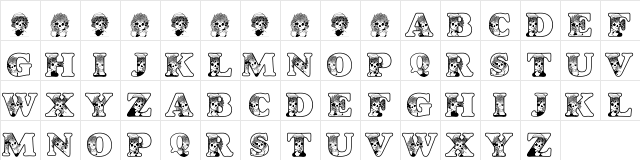
LMS Kids In A Candy Shop Regular
Design Context for LMS Kids In A Candy Shop Typeface
LMS Kids In A Candy Shop trades formality for fun, with bouncy, characterful letterforms that bring warmth and energy to any project.
Great for children's books, toy packaging, family event branding, and casual consumer-facing design.
Font Pairing: Pairs well with a rounded or humanist sans for body copy, maintaining the friendly tone without relying on LMS Kids In A Candy Shop to carry extended reading.
Pro Tip: Avoid using LMS Kids In A Candy Shop for long passages of text — it works best for headlines, labels, and short calls to action.